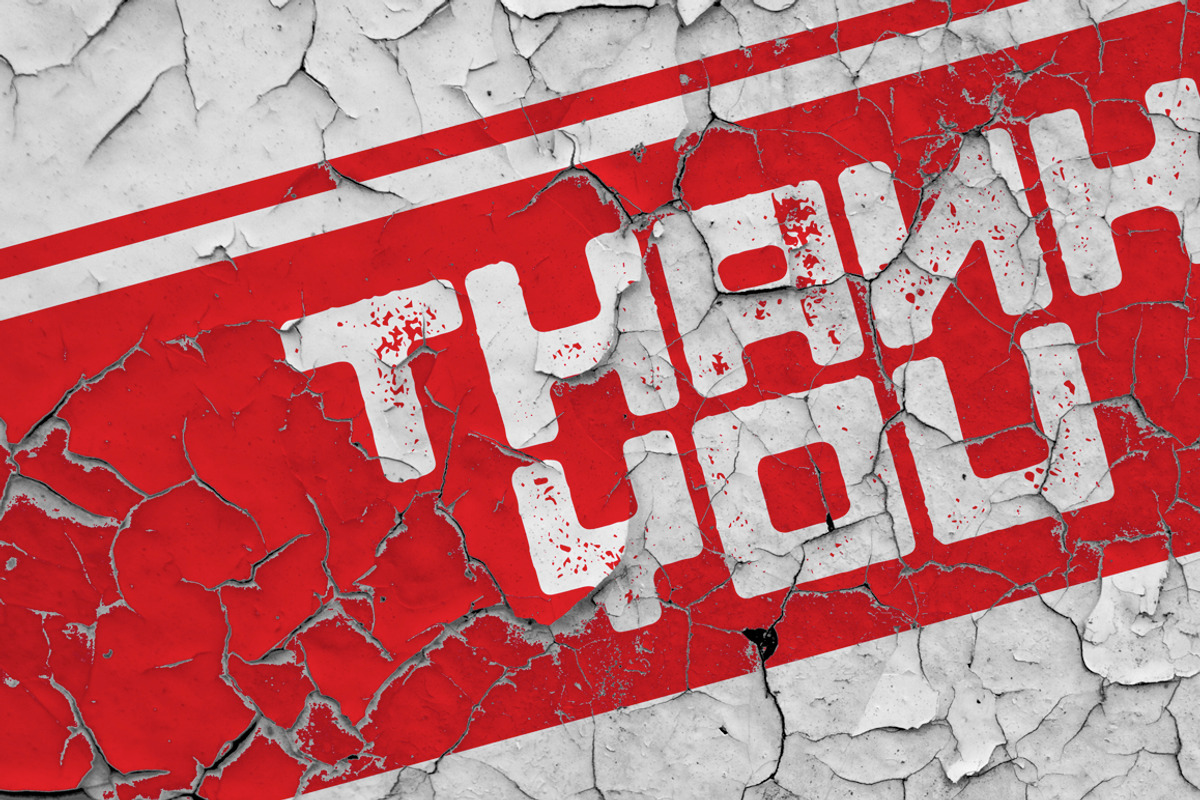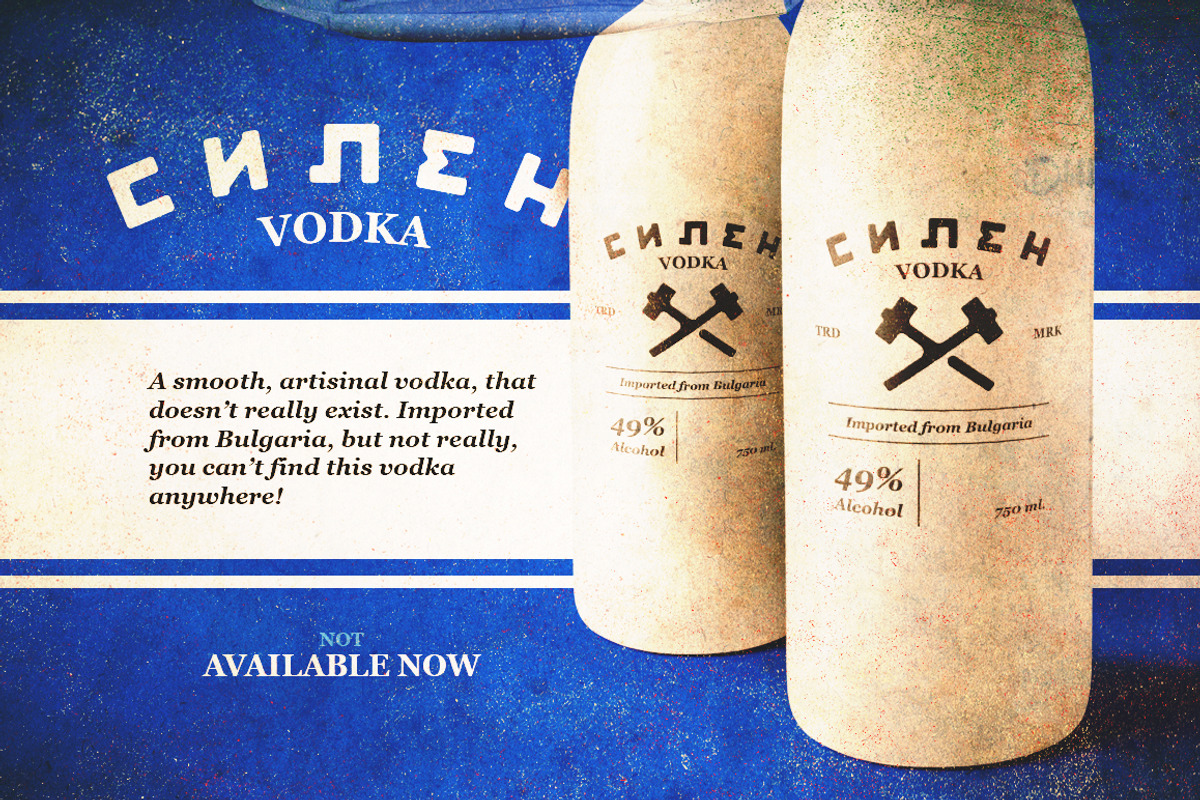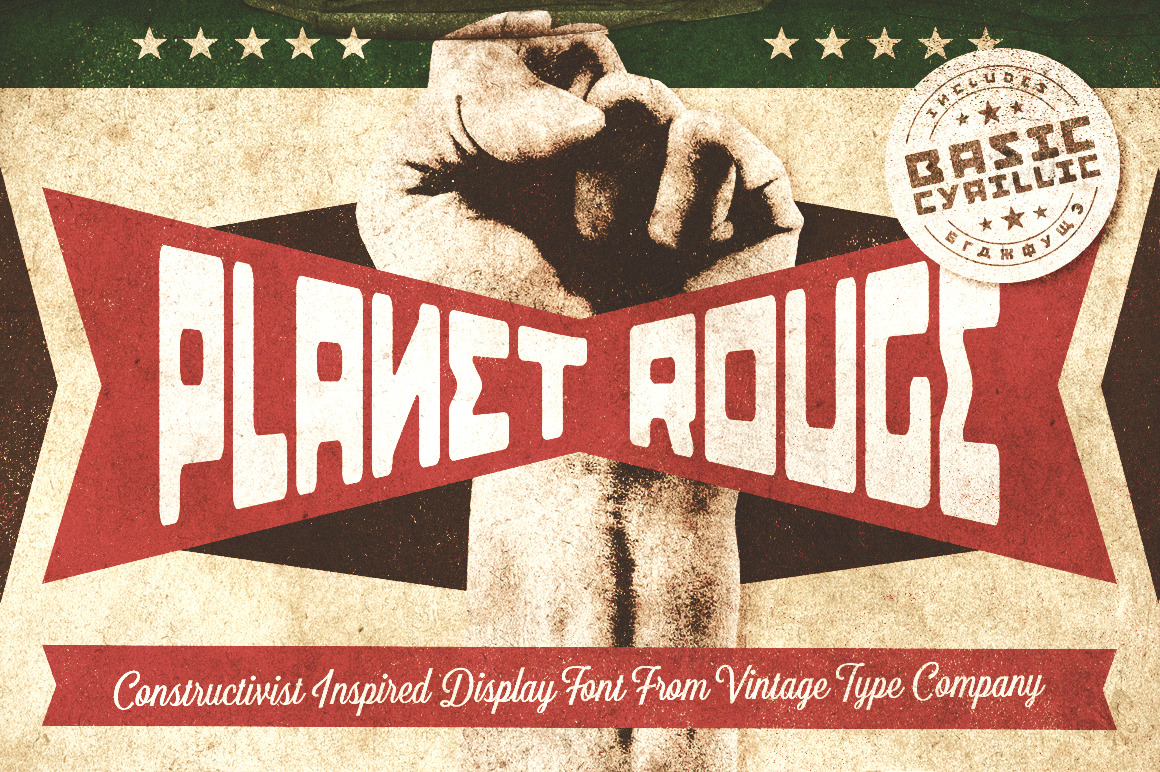
Planet Rouge Display Font
Planet Rouge is a constructivist inspired display font that comes with a rough inked version, as well as multilingual support including basic cyrillic!
Get your message heard with Planet Rouge!